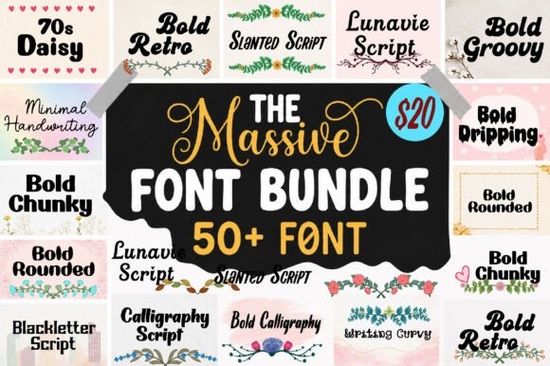
If you work on design projects regularly, you know how quickly font costs add up. The Massive Mega Bundle Font solves that problem by packing more than 50 unique typefaces into one affordable collection. Instead of buying fonts one by one, you get a wide range of styles from bold display type to delicate scripts ready for logos, packaging, social media, and everything in between.
What fonts are actually included in this bundle?
This isn't just a random dump of similar-looking typefaces. The collection covers a genuinely useful range of styles, including:
- Display fonts bold, eye-catching styles for headlines and posters
- Handwritten and script fonts casual, personal styles for invitations and branding
- Serif fonts clean, traditional options for body text and professional layouts
- Decorative and themed fonts creative styles for seasonal or niche projects
- Retro and gothic fonts vintage and edgy looks for posters and apparel
- Sporty fonts strong, athletic styles for team logos and merchandise
You'll find typefaces like Spooky Moon Font, Subway Graffiti Font, Cute Crayon Font, Vintage Bold Font, and Robot Parts Font among the options. That kind of variety means you're not stuck scrolling through pages of fonts trying to find one that works you already have it.
What can you actually make with these fonts?
The bundle works across both print and digital projects. Here are some common uses:
- Logo design and brand identity kits
- Wedding invitations and greeting cards
- Poster and flyer layouts for events
- Social media graphics for Instagram, Pinterest, and Facebook
- Product packaging labels and tags
- T-shirt designs and other print-on-demand products
- Sublimation designs for mugs, tumblers, and apparel
- Scrapbooking and journal layouts
Having a [go-to collection of display typefaces](/spooky-moon-font-display-fonts) means you spend less time searching and more time actually designing. That's especially helpful during busy seasons when you need to turn around projects quickly think holiday cards, seasonal merch drops, or last-minute event materials.
Fonts from Creative Fabrica come with clear licensing for both personal and commercial use, which matters if you plan to sell anything you create. The quality is also more consistent these are professional-grade files with proper spacing, punctuation marks, and multilingual support.
Is this bundle a good deal financially?
Let's do simple math. If a typical display font costs around $10–$20, buying 50 individually would cost $500–$1,000. Even if you only plan to use 10 of the fonts in this bundle, you're still saving significantly compared to purchasing them separately.
For [crafters who need variety](/cute-crayon-font-display-fonts) for different projects a playful font for kids' party invitations, a bold one for sports team logos, a script font for wedding stationery this kind of bundle makes practical sense. You don't need to justify each font purchase anymore.
What should you check before buying?
A few things to confirm before you click "buy":
- Make sure the license covers your intended use (personal, commercial, POD, etc.)
- Check that fonts are compatible with your software most work in Canva, Adobe Illustrator, Cricut Design Space, and other common tools